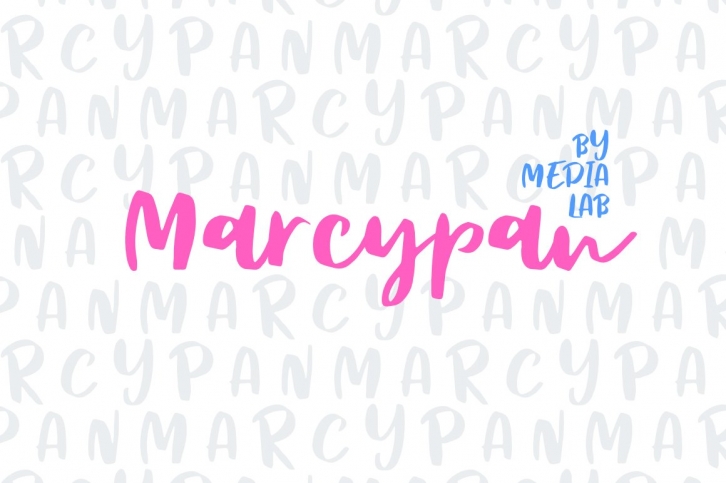
The Marcypan font is a simple font, comes with alternate symbols and some ligatures. I keep this font looks elegant, readable, stylish, and catchy.
You can use this font for watermark on photography, signature or signature logo design, quotes, album cover, business card, and many other design project.